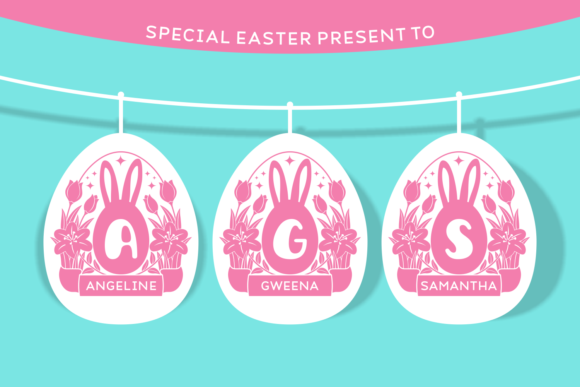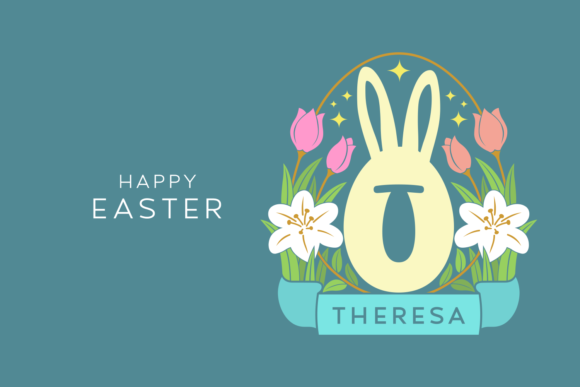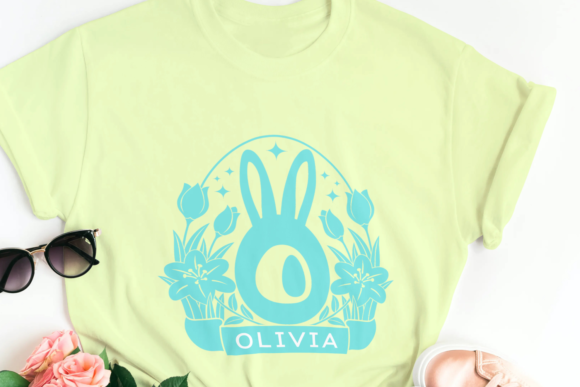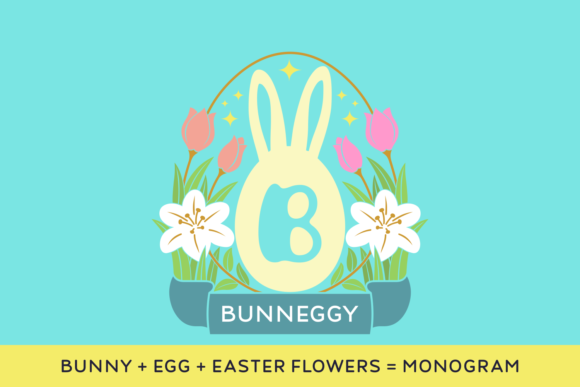
Bunneggy Font: The Ultimate Choice for Playful and Whimsical Designs
Are you looking for a font that can add a touch of playfulness and joy to your designs? Look no further than the Bunneggy font! This cute and jolly decorative font is perfect for a wide range of creative projects, from cartoon-related designs to children’s games, quotes, titles, brand names, book covers, posters, and more.
What Makes Bunneggy Font So Special?
Bunneggy font is a unique and eye-catching typeface that is sure to capture the attention of your audience. Its playful and whimsical design makes it perfect for designs that require a touch of fun and personality. The font is carefully crafted to ensure that it is legible and easy to read, making it suitable for use in a variety of contexts.
Key Features of Bunneggy Font
- Cute and Jolly Design: The Bunneggy font features a cute and jolly design that is sure to bring a smile to the face of your audience.
- Playful and Whimsical: The font has a playful and whimsical feel that makes it perfect for designs that require a touch of fun and personality.
- Legible and Easy to Read: Despite its playful design, the Bunneggy font is carefully crafted to ensure that it is legible and easy to read.
- Versatile: The font is suitable for use in a wide range of creative projects, from cartoon-related designs to children’s games, quotes, titles, brand names, book covers, posters, and more.
Use Cases for Bunneggy Font
The Bunneggy font is a versatile typeface that can be used in a wide range of creative projects. Here are some use cases where the font can be used:
- Cartoon-Related Designs: The Bunneggy font is perfect for cartoon-related designs, such as character names, captions, and quotes.
- Children’s Games: The font can be used to create fun and engaging children’s games, such as puzzle titles, game instructions, and character names.
- Quotes and Titles: The Bunneggy font can be used to create eye-catching quotes and titles that are sure to capture the attention of your audience.
- Brand Names: The font can be used to create unique and memorable brand names that reflect the playful and whimsical personality of your brand.
- Book Covers: The Bunneggy font can be used to create eye-catching book covers that are sure to stand out on bookshelves.
- Posters: The font can be used to create fun and engaging posters that are perfect for advertising, promoting events, or raising awareness about social causes.
Why Choose Bunneggy Font?
There are many reasons why you should choose the Bunneggy font for your next creative project. Here are some reasons why:
- Unique and Eye-Catching: The Bunneggy font is a unique and eye-catching typeface that is sure to capture the attention of your audience.
- Playful and Whimsical: The font has a playful and whimsical feel that makes it perfect for designs that require a touch of fun and personality.
- Legible and Easy to Read: Despite its playful design, the Bunneggy font is carefully crafted to ensure that it is legible and easy to read.
- Versatile: The font is suitable for use in a wide range of creative projects, making it a great addition to your font library.
In conclusion, the Bunneggy font is a cute and jolly decorative font that is perfect for a wide range of creative projects. Its playful and whimsical design makes it perfect for designs that require a touch of fun and personality. With its legible and easy-to-read design, the Bunneggy font is a great choice for designers and crafters who want to create eye-catching and engaging designs.
Tips and Tricks for Using Bunneggy Font
Here are some tips and tricks for using the Bunneggy font:
- Use it in Combination with Other Fonts: The Bunneggy font can be used in combination with other fonts to create a unique and eye-catching design.
- Experiment with Different Sizes and Colors: The font can be used in a variety of sizes and colors to create a bold and eye-catching design.
- Use it to Add a Touch of Personality: The Bunneggy font can be used to add a touch of personality to your designs, making them more engaging and fun.